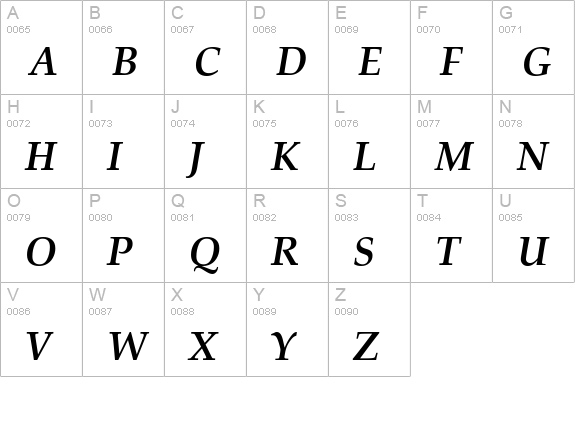
URWPalladioT Bold Italic Font Details
URWPalladioT Bold Italic is a strong, high-contrast, italic variant in the URWPalladioT typeface family \xE2\x80\x94 well suited to headlines, attention-grabbing titles, and strong calls-to-action.
URWPalladioT Bold Italic is a versatile and elegant font that combines the boldness of URWPalladioT Bold with the stylish slant of italics. This unique combination creates a visually striking and impactful typeface that is perfect for a wide range of design projects. The bold weight of URWPalladioT Bold Italic provides a powerful and commanding presence, making it an ideal choice for attention-grabbing headlines, titles, and logos. Its italicized slant adds a touch of sophistication and drama, making it suitable for adding emphasis and flair to body text, quotes, and captions. The URWPalladioT Bold Italic font is designed with meticulous attention to detail, ensuring optimal legibility and readability even at smaller sizes. Its carefully crafted letterforms feature subtle curves and elegant serifs that give it a timeless and classic appeal. One of the best features of URWPalladioT Bold Italic is that it is freely available to download at FontsMarket.com. This means that you can easily access this exceptional font without any cost. Whether you are a professional designer or a hobbyist, this free font is a valuable addition to your font library. With its bold and italicized style, URWPalladioT Bold Italic is a versatile and eye-catching font that will elevate the impact of your designs. Download it for free today at FontsMarket.com and unlock endless possibilities for creating visually stunning and captivating projects.